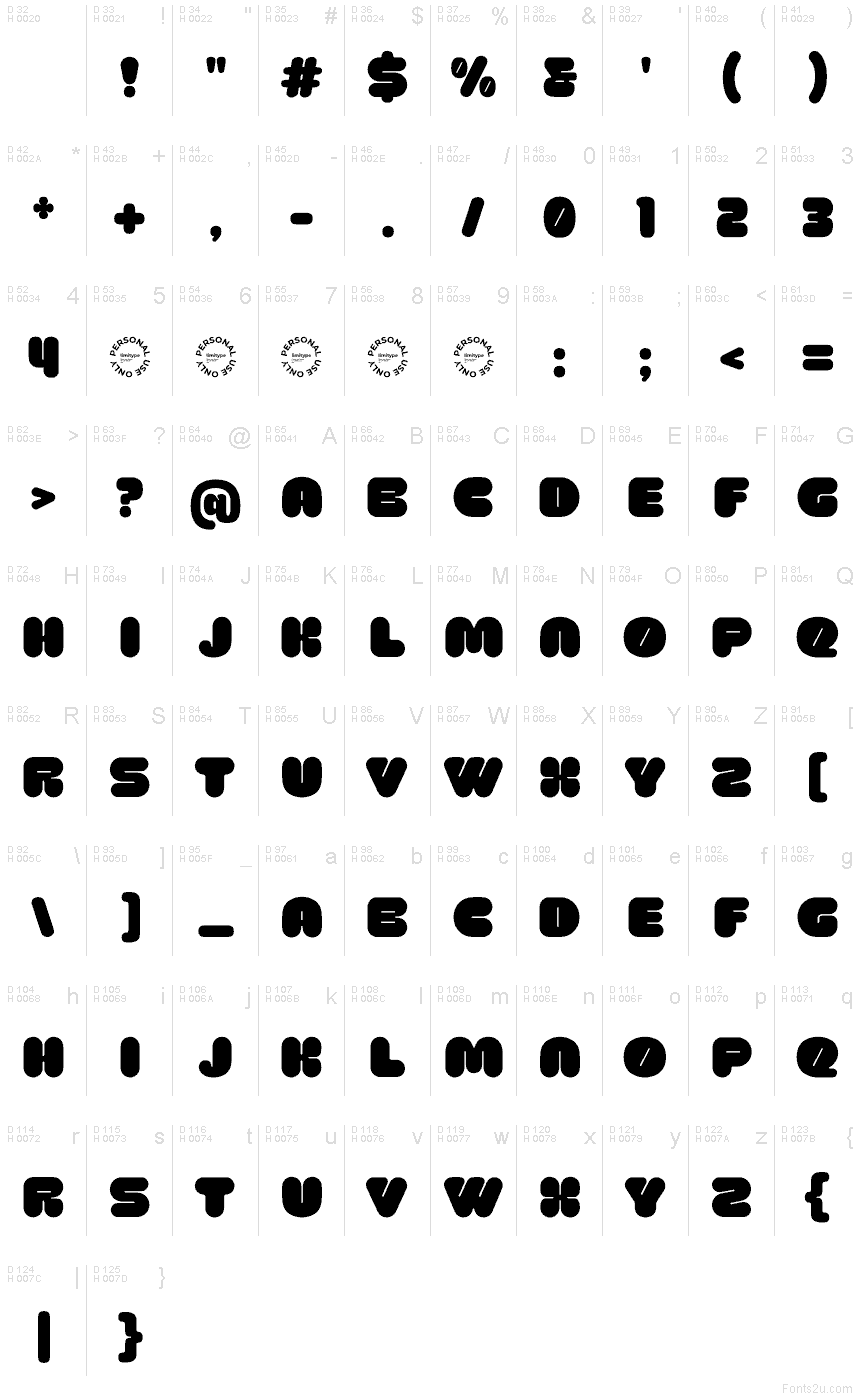
Roena Demo
Roena font by Limitype is a free bold groovy display font. Built around chunky, pill-shaped strokes with smooth corners and clever carved cuts, it turns negative space into rhythm. The letters feel plush yet controlled—like ink pressed thick and even—so headlines snap without looking harsh. Those diagonal slashes and scooped counters add a playful pulse that reads fast and feels fresh.
Using Roena, big type becomes the brand moment. It shines on event posters, retro album art, beverage labels, streetwear graphics, playful signage, and social headlines. This free font holds tight spacing beautifully; try generous sizing and pair it with a thin, neutral sans to let the soft, inky forms breathe while keeping layouts clean.